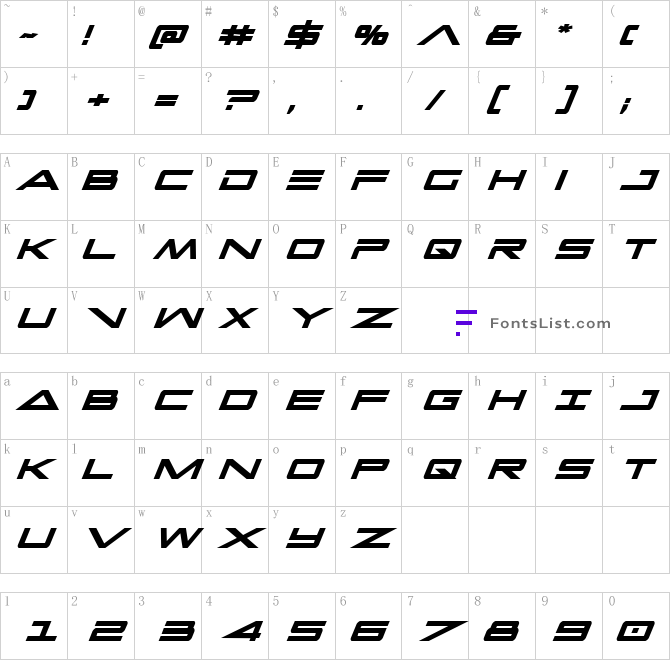
- Font Name:Capella Condensed Bold Italic
Capella-Condensed-Bold-Italic.ttf is a very beautiful artistic font, Capella-Condensed-Bold-Italic.ttf is widely used in the design and printing of various books and pictures,Capella-Condensed-Bold-Italic.ttf has a strong visual impact,Capella-Condensed-Bold-Italic.ttf is a commonly used font in newspapers, magazines and books, and is used in posters, e-commerce Poster design, store design, logo design, font design and other fields.Capella-Condensed-Bold-Italic.